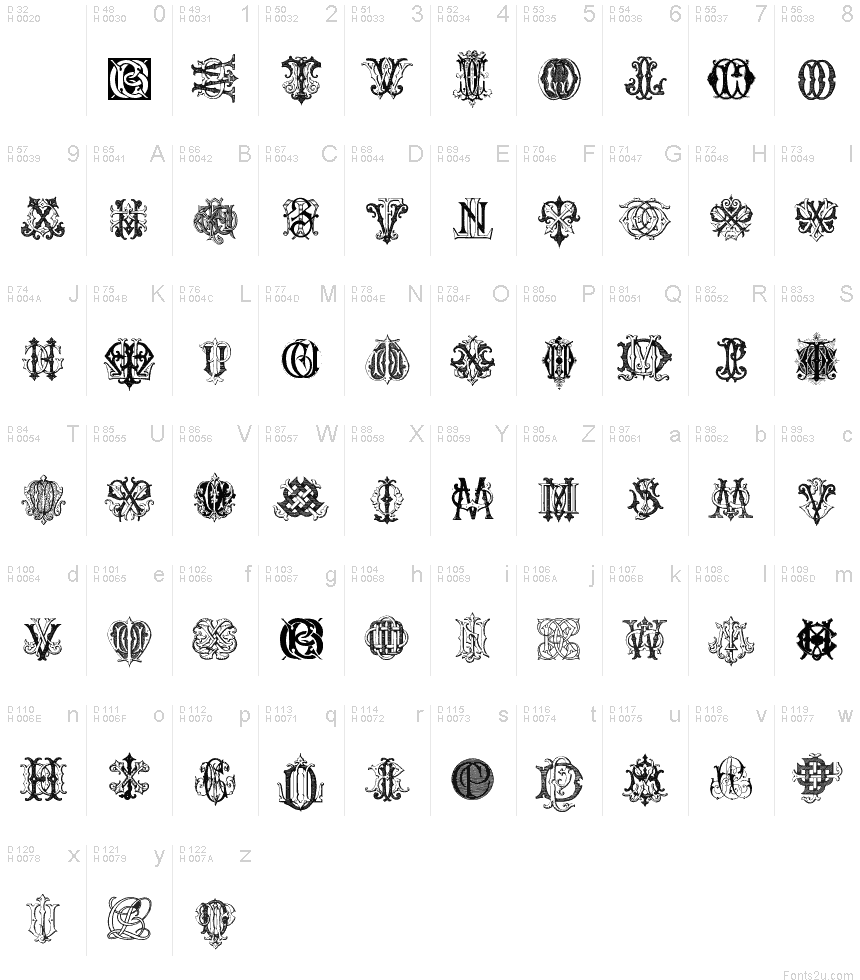
Intellecta Monograms Random Samples Three by Paulo W of Intellecta Design is a free decorative monogram font with a medieval Gothic streak. Each character forms a dense, self-contained emblem from intertwined initials, flourishes, and sharp ornamental spurs. The designs vary markedly, yet their looping symmetry and engraved linework hold the collection together.
Heraldry, old books, and formal ceremony are natural subjects for wedding invitations, heritage branding, and publishing covers, since the lettering already resembles a set of antique printer's marks. It is especially convincing in custom crests and emblems.
Intellecta Monograms Random Samples Two is a random, limited set from Intellecta Monograms, a collection containing thousands of monograms, mainly in the Victorian style.